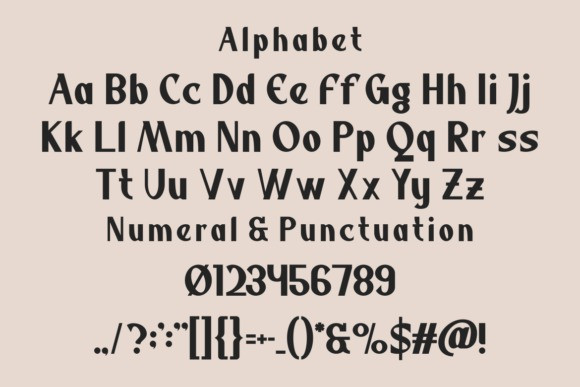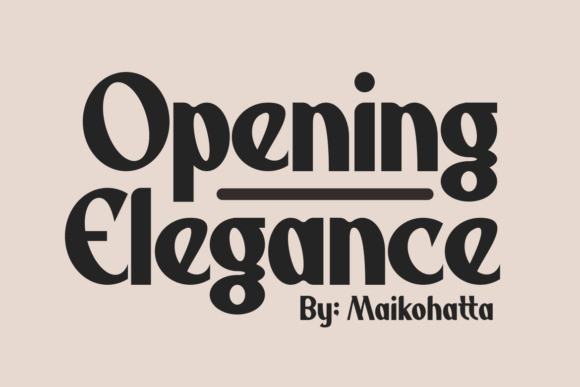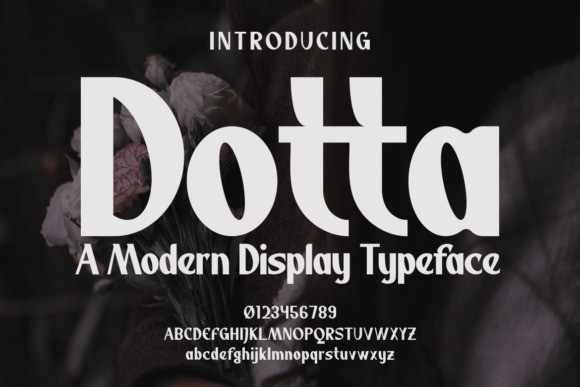
Dotta Font
Dotta Font is a modern display typeface with a bold and authentic touch. Dotta Font, this stunning font is suitable for any branding project like logo, t-shirt printing, esports, and many more.